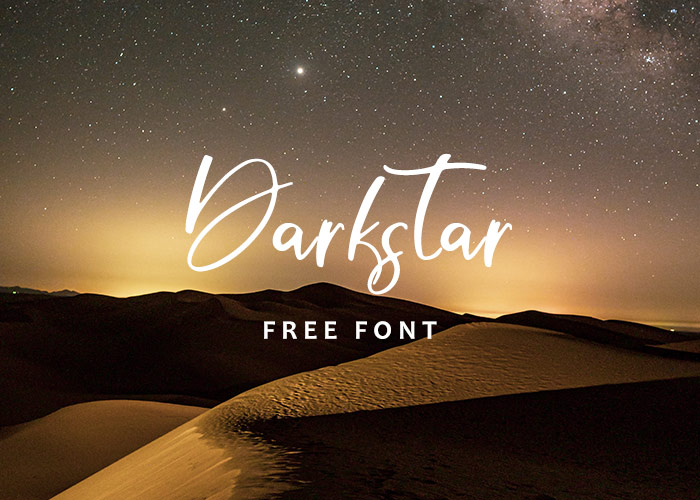
Give your designs a star on top. Darkstar is a playful display font perfect for highlighting elements in fun, night-sky, and themed projects.
- Font name: Darkstar
- Subfamily: Regular
- Designer: BestTypeCo
Where to use it
Darkstar works well for:
- Social media posts and thumbnails
- Posters and print designs
- Themed projects — retro, gothic, funky, hunk, grunge, urban, and more
Highlights
- A versatile display font for multipurpose designs
- Easy to pair with other display or simple sans-serif fonts
- Ideal for attention-grabbing headlines and decorative text